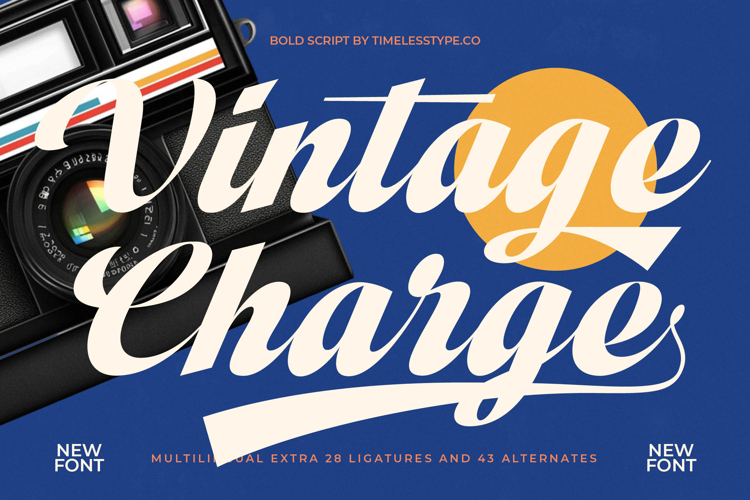
Vintage Charge - Bold Script Font
Elevate your designs with the captivating presence of Font Vintage Charge - Bold Script Font Script. This typeface fuses classic charm and contemporary flair, delivering a truly unique aesthetic. Its bold, flowing letterforms and generous curves exude a confident, inviting personality, perfect for making a memorable visual impact. Crafted with meticulous attention, this script offers a sophisticated yet approachable feel for projects demanding style and substance.
Unlock endless creative possibilities with Font Vintage Charge - Bold Script Font Script, a supremely versatile asset for diverse design needs. It is perfect for impactful luxury branding, eye-catching product packaging, dynamic apparel design, and engaging editorial layouts. Imagine it gracing signage, campaigns, or invitations, instantly conveying quality and enduring style. Its distinctive character ensures your message stands out, for both vintage-inspired and modern ventures.